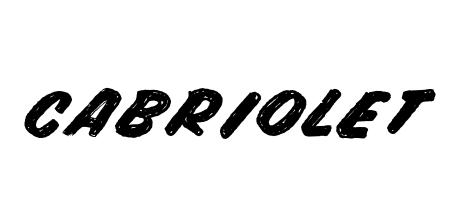
CABRIOLET
CABRIOLET: A font that embodies a spirited drive. Its bold, slightly slanted characters evoke the feeling of wind in your hair. A touch of playful roughness adds personality, while its readability ensures it''s as practical as it is stylish. Perfect for titles needing a touch of vintage speed.